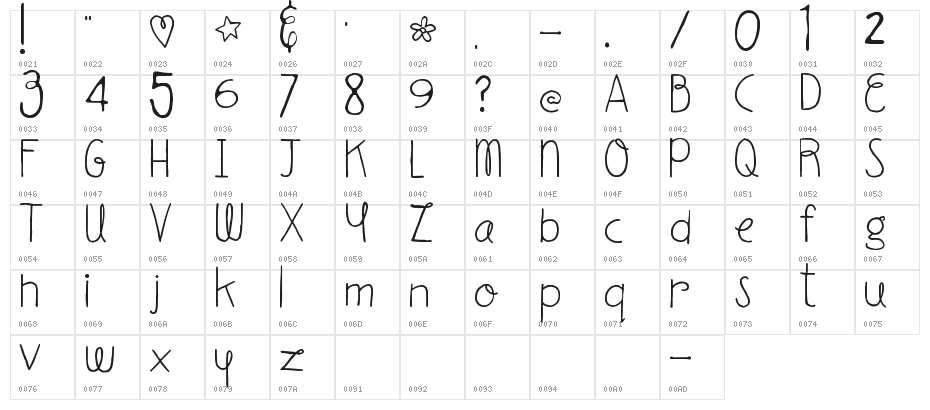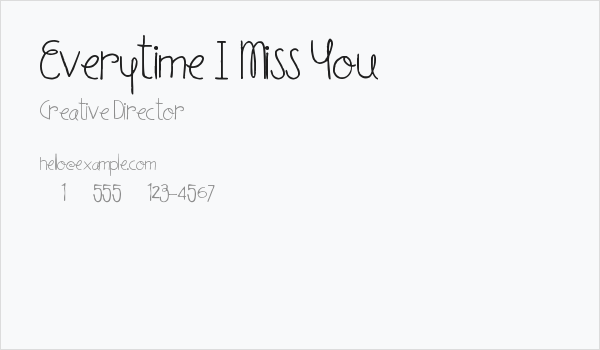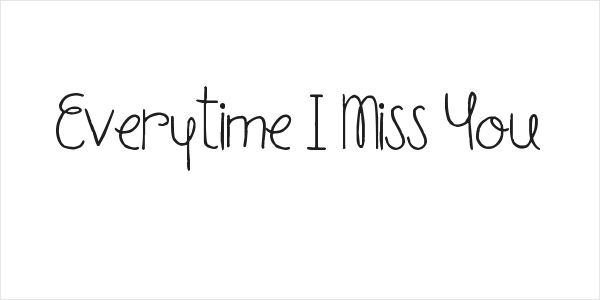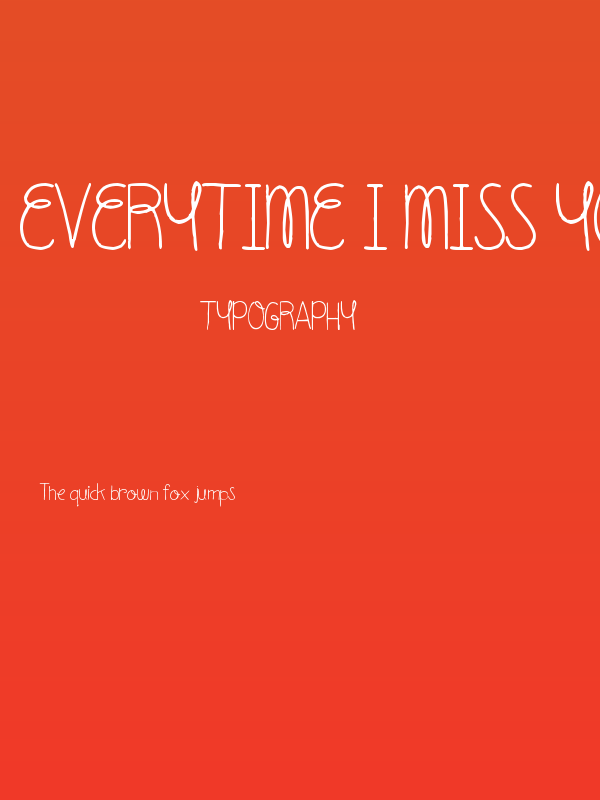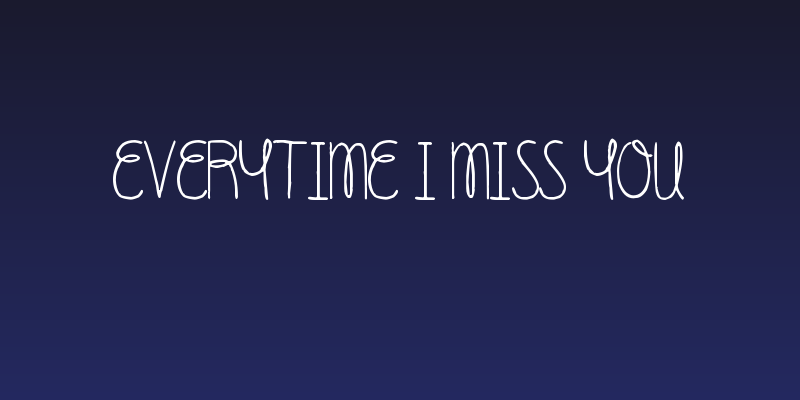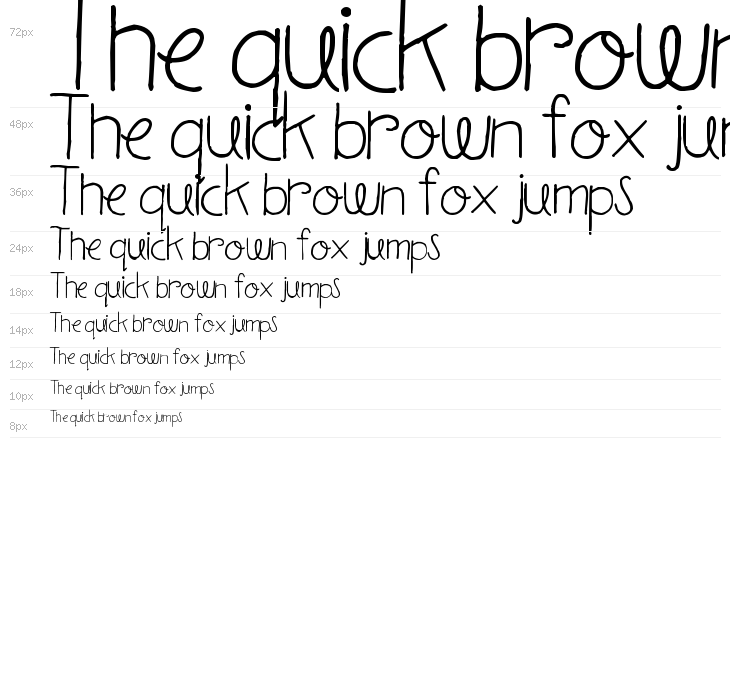
Everytime I Miss You Font
Everytime I Miss You Description
This playful and whimsical font features a hand-drawn style with irregular, organic shapes that give it a casual and friendly appearance. The characters are tall and narrow, with a slight tilt that adds to the informal feel. The uppercase letters are bold and prominent, while the lowercase letters maintain a consistent flow with rounded edges. Numbers are distinct and easily readable, and the special characters include charming symbols like hearts and stars, enhancing its decorative appeal. The overall design is reminiscent of handwritten notes, making it perfect for projects that require a personal touch.
| Proposed Projects | Ideal for greeting cards, children's books, playful branding, and personal notes. |